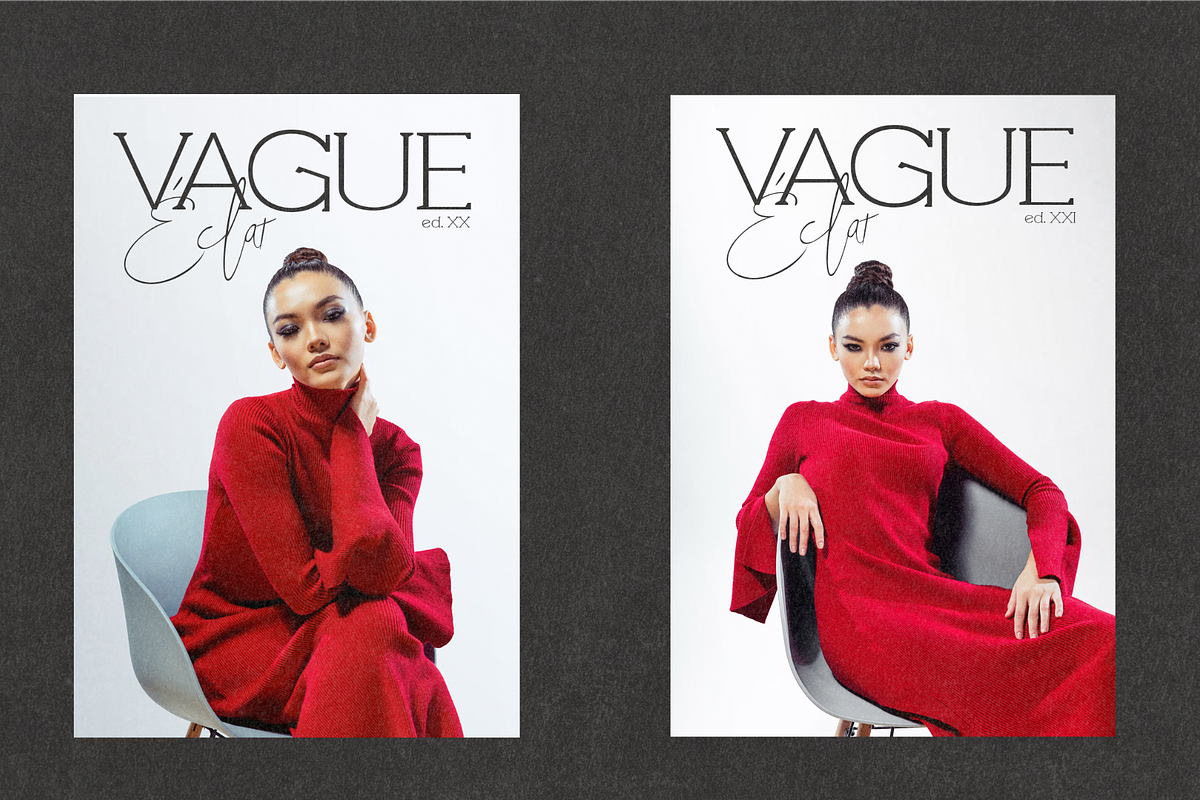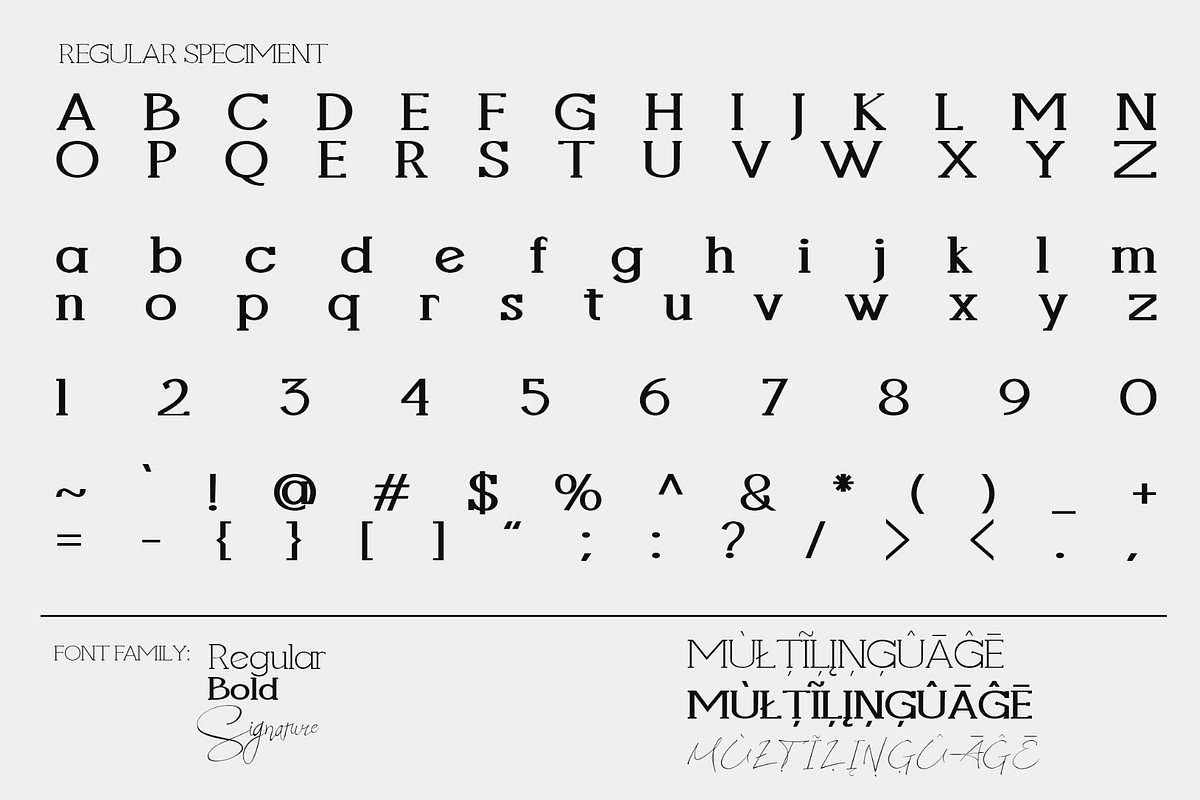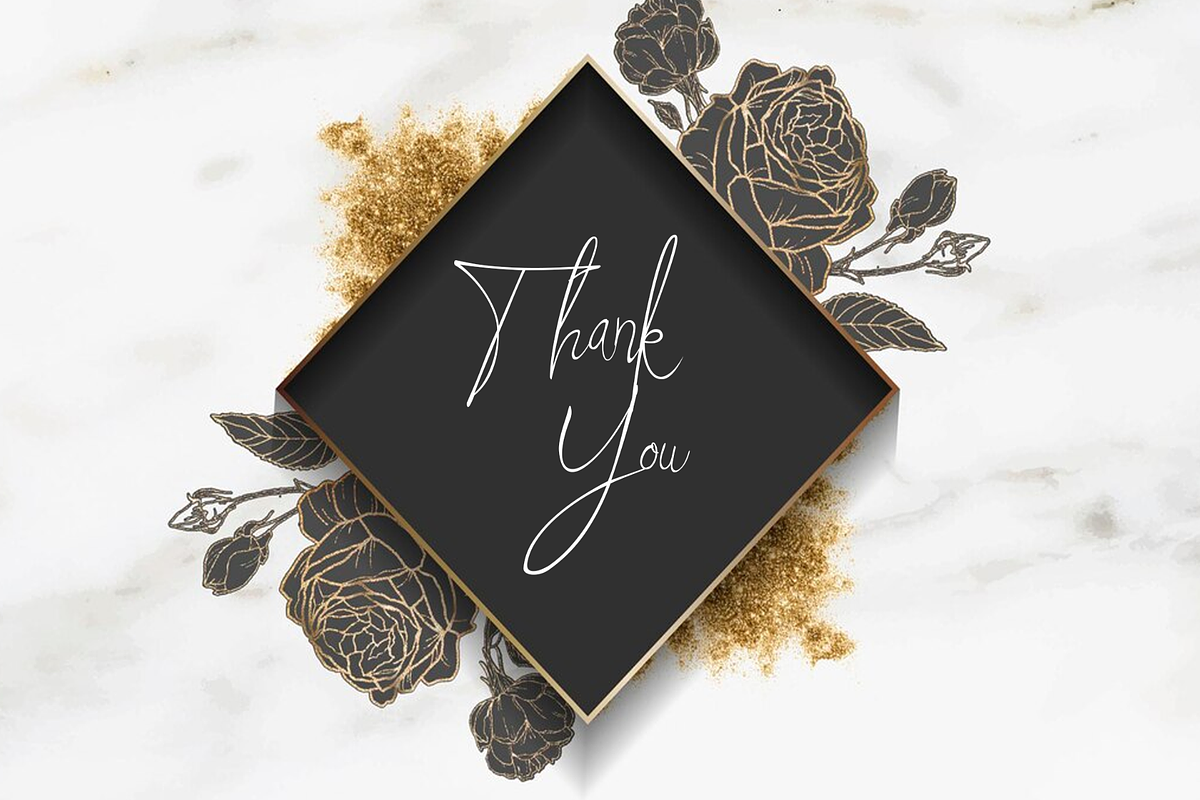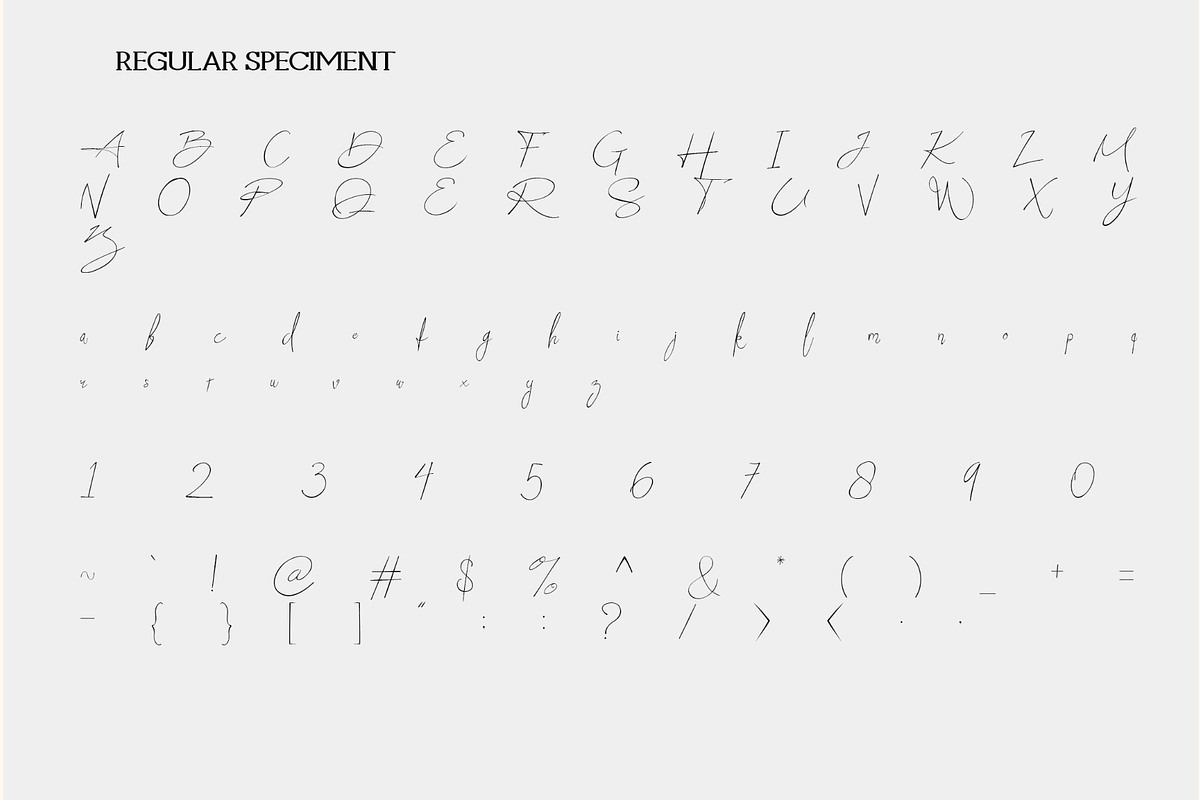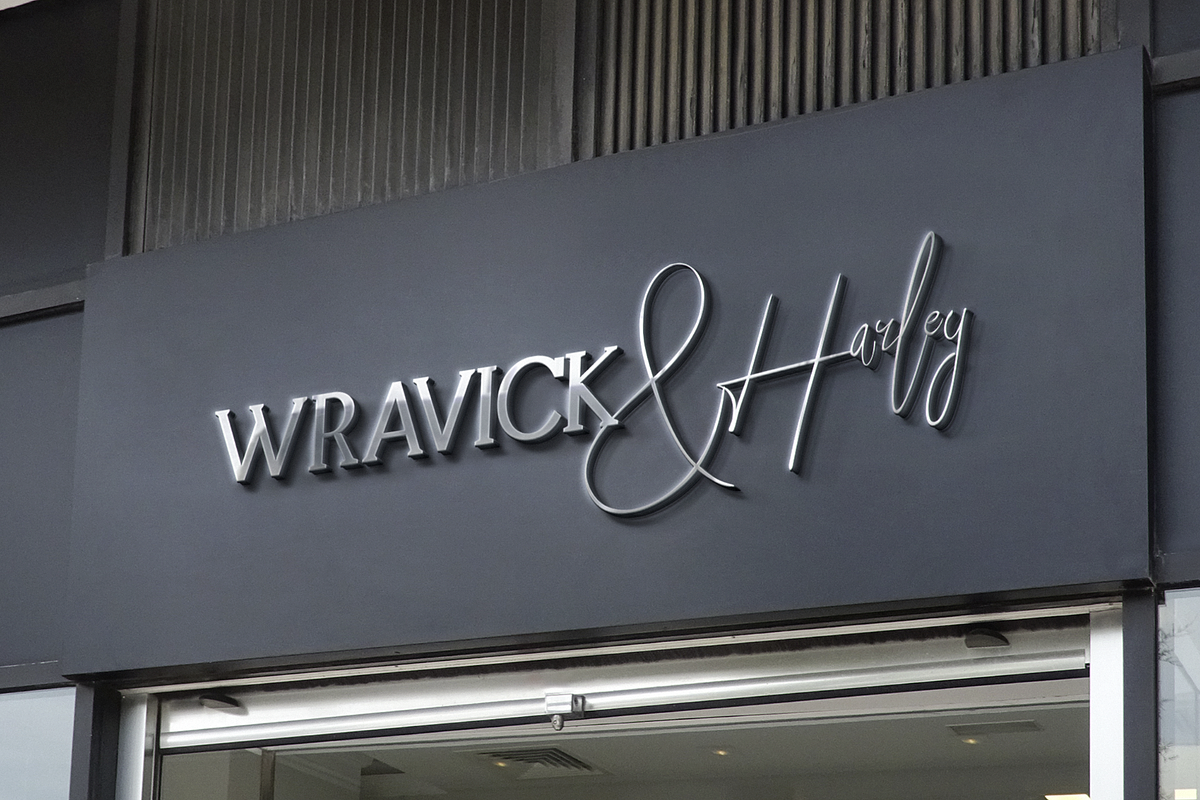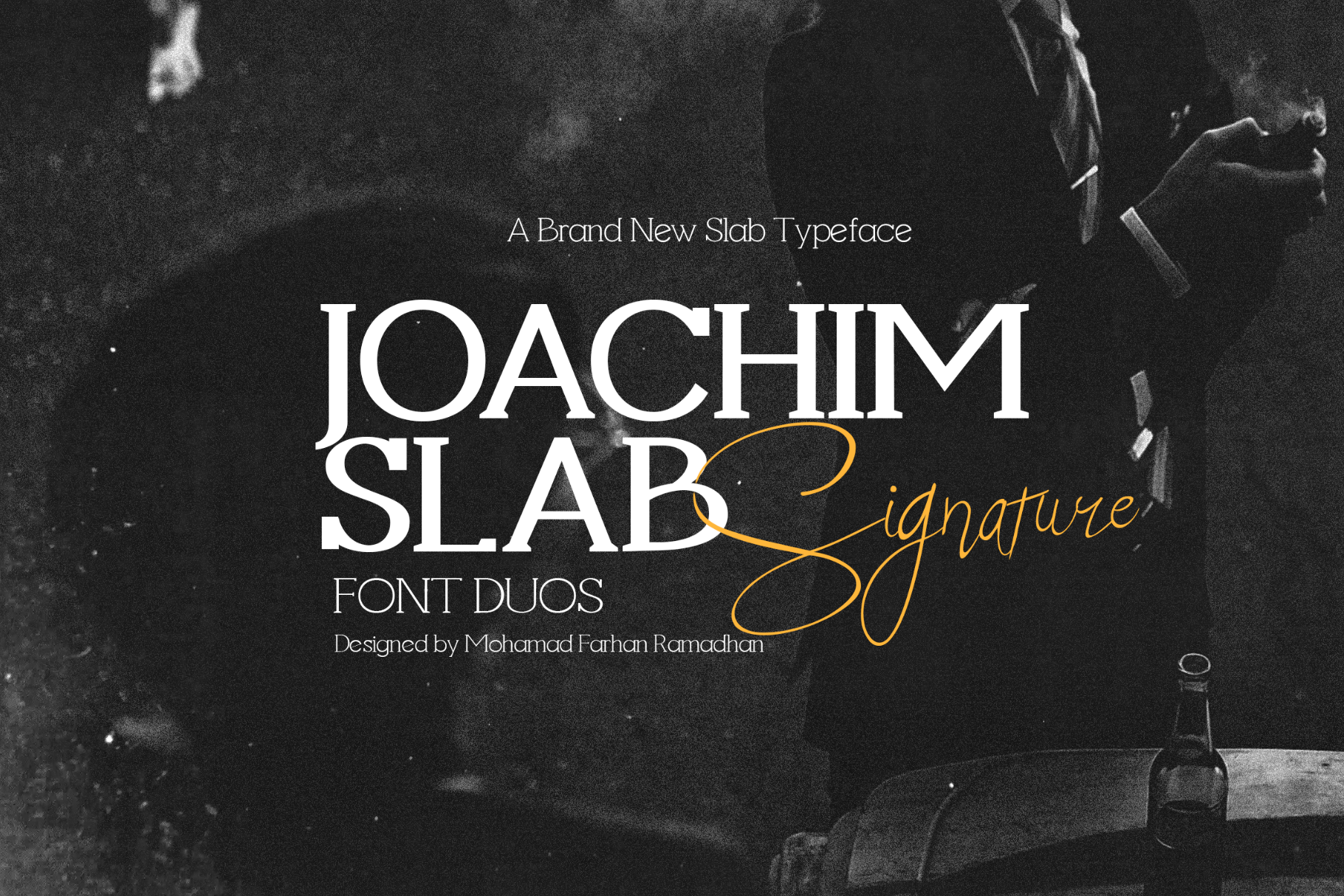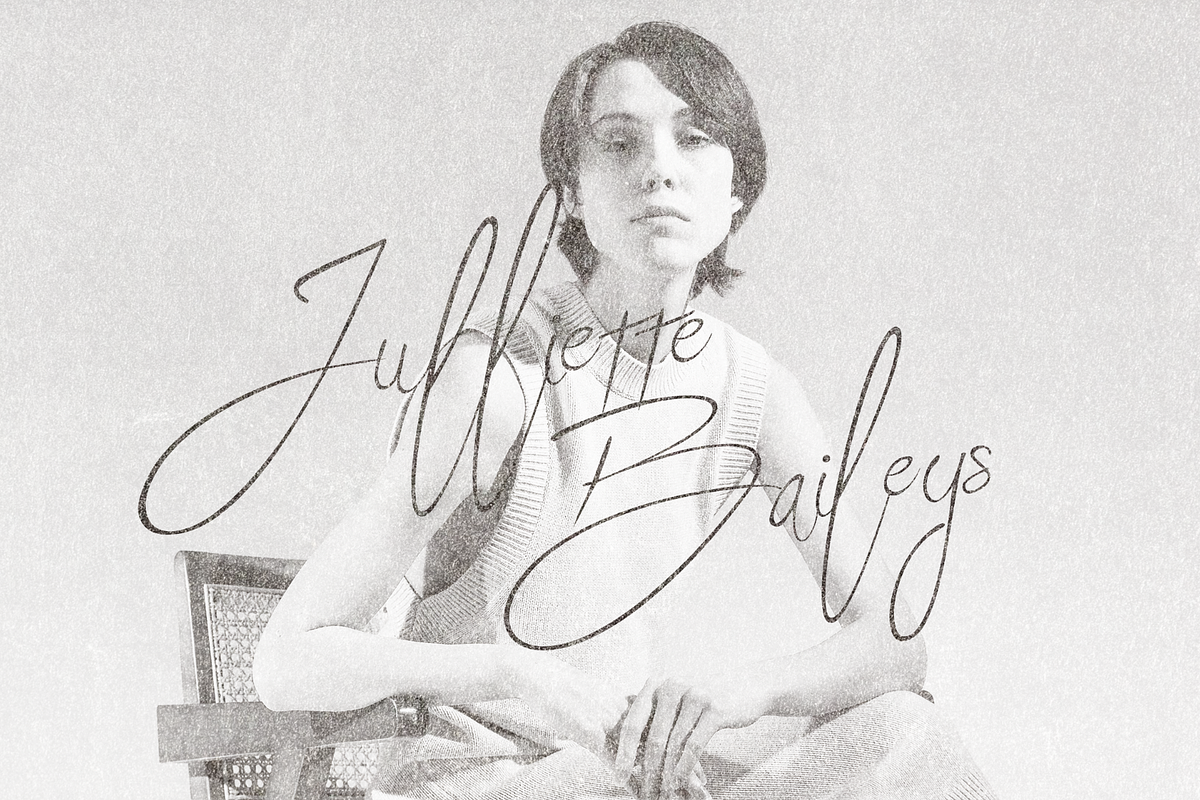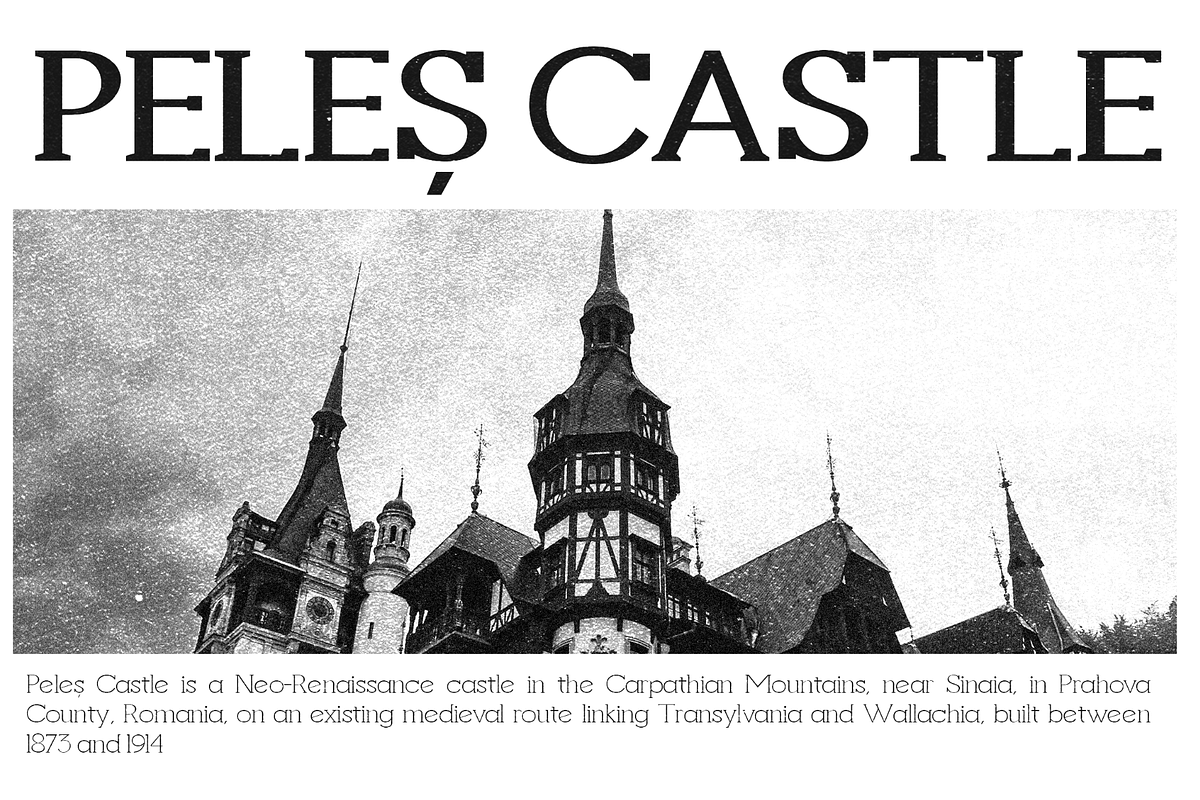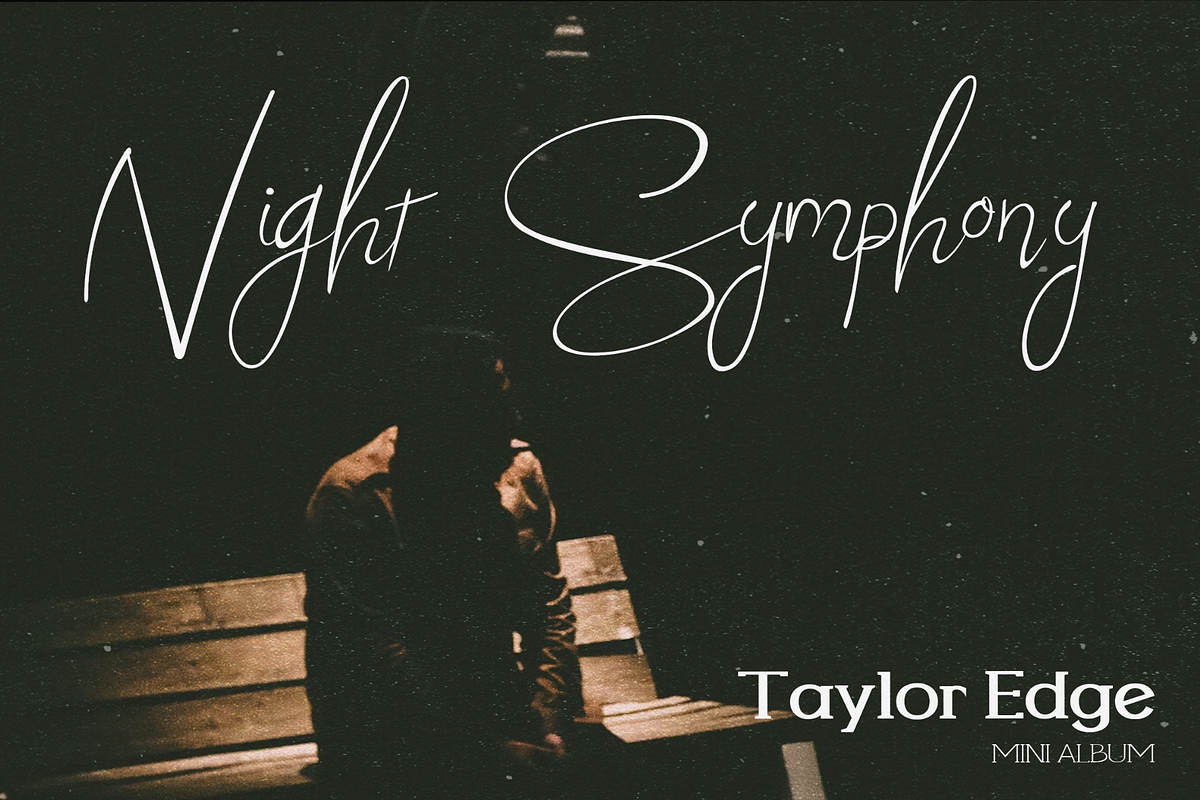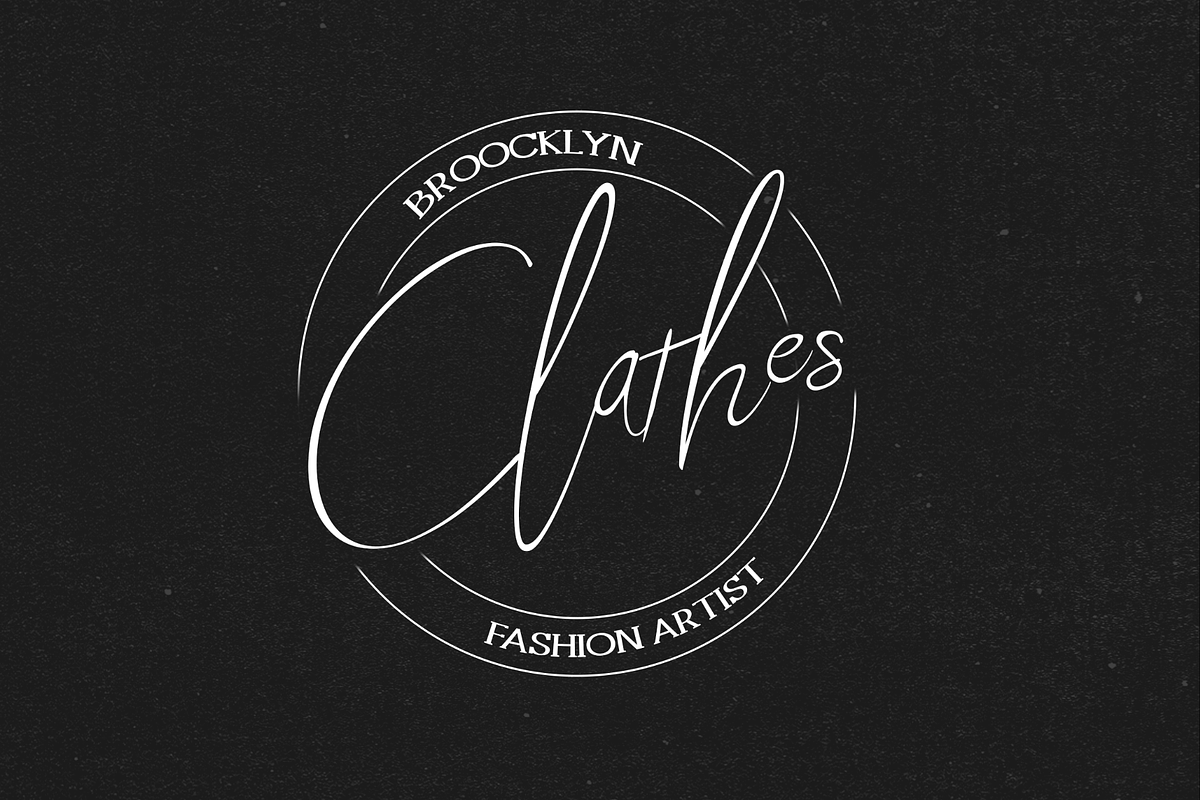
Joachim Slab - Elegant Font Duos
Introducing Joachim Slab, a Font Duos Typeface exuding elegance and a clean, sustainable aesthetic. Its signature style adds a touch of handwritten charm. Available in regular, bold, and signature variants, it's versatile for visual identity, movie posters, book covers, headlines, album covers, logotypes, and more. Craft a distinctive visual identity with Joachim Slab's refined and dynamic character.